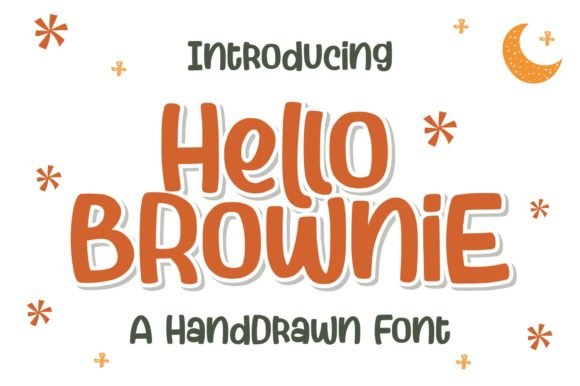
Discover the Sweet Charm of Hello Brownie Font
Remember that moment when you stumbled upon the perfect font for your project, and everything just clicked? It’s like finding a hidden treasure in a sea of options. For designers, that moment is often a result of countless hours spent searching for the perfect combination of style and functionality. And, if you’re anything like us, you’re always on the lookout for that next big thing. That’s where Hello Brownie Font comes in – a delightful display font that’s sure to capture your heart and elevate your designs.
With its natural, whimsical style, Hello Brownie Font is the perfect addition to any design project. Whether you’re working on a children’s book, a food blog, or a social media campaign, this font is sure to bring a touch of warmth and friendliness to your creations. Its versatility makes it a valuable tool for designers of all levels, and we can’t wait to see the amazing things you’ll create with it.
Hello Brownie Font Key Features
- Unique Characteristics: The Hello Brownie Font features a playful, handwritten style with a mix of bold and cursive elements, making it perfect for adding a personal touch to designs
Hello Brownie Font Review
Overall, I think the Hello Brownie Font is a charming and playful addition to any design project. ✨ The font’s rounded edges and soft curves give it a friendly and approachable feel that’s perfect for kid-friendly content, packaging, or advertising. ✨ The font also has a nice variety of weights and styles, making it easy to customize and adapt to different design needs.
- The font’s unique character and personality really shine through in its various weights and styles.
- It’s great for creating eye-catching headlines and titles that grab attention.
- The font’s rounded edges and soft curves make it a great choice for designs that need to feel friendly and approachable.
However, there are a few limitations to consider. ⚠️ The font may not be the best choice for more formal or professional designs, as its playful personality can come across as unpolished or immature. ⚠️ Additionally, some users may find the font’s rounded edges and soft curves to be a bit too whimsical or cutesy for their taste.
Overall, I think the Hello Brownie Font is a great choice for designers who are looking for a playful and friendly font to add some personality to their designs. While it may not be suitable for every project, it’s definitely a great option for those who want to create eye-catching and engaging designs that stand out.
Tips for Getting the Most Out of “Hello Brownie Font”
Use “Hello Brownie Font” for creative and playful designs, such as:
- Birthday invitations and party decorations
- Children’s book illustrations and educational materials
- Food and drink branding and packaging